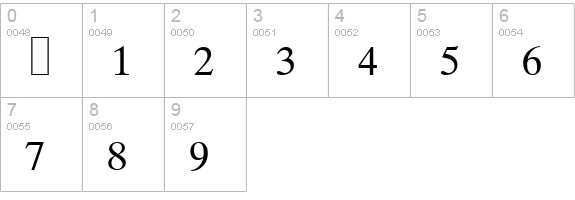
RomanEleven-Regular Font Details
RomanEleven-Regular is the standard, neutral variant in the RomanEleven typeface family \xE2\x80\x94 well suited to general body text, paragraphs, and standard typographic work.
RomanEleven-Regular is a classic and elegant serif font that exudes sophistication and timelessness. With its clean lines and balanced proportions, this font is perfect for conveying a sense of tradition and professionalism in various design projects. Whether used for body text or headlines, RomanEleven-Regular offers excellent legibility and readability, making it a versatile choice for both print and digital applications. Best of all, RomanEleven-Regular is completely free to download at FontsMarket.com. This means you can elevate your designs with this high-quality font without any cost. Don't miss out on the opportunity to add RomanEleven-Regular to your font collection and enhance your projects with its refined aesthetic and versatility.